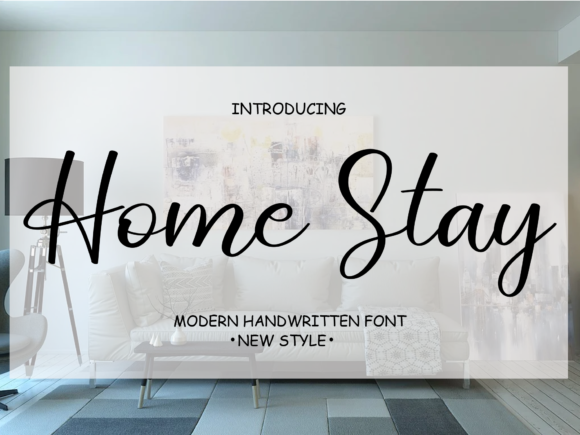
Step into the realm of elegance and sophistication with Home Stay Font, a script font that exudes charm and uniqueness. With its delicate curves and flowing strokes, Home Stay captures the essence of handwritten calligraphy, evoking a sense of warmth and intimacy.
Immerse yourself in a world of creativity and expression as Home Stay captivates your senses. Whether you're designing wedding invitations, crafting heartfelt letters, or creating captivating food product labels, Home Stay elevates your designs with a touch of ethereal beauty. Its versatility shines as it seamlessly complements titles, adding a touch of elegance to any project.
Experience the charm of Home Stay in your digital creations. Its graceful lines dance across the screen, enchanting your audience with their effortless beauty. Bask in the compliments as your designs come alive with a timeless aesthetic that leaves a lasting impression.
Home Stay is more than just a font; it's a gateway to a world of endless possibilities. Let its flowing strokes inspire your creativity, as you weave tales of love, joy, and celebration. With Home Stay by your side, your designs will blossom into masterpieces that captivate and enchant.